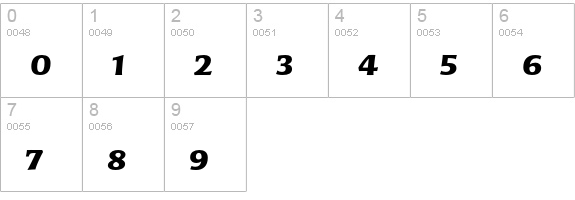
Conga Brava Std Bold is a strong, high-contrast variant in the Conga typeface family \xE2\x80\x94 well suited to headlines, attention-grabbing titles, and strong calls-to-action.
Conga Brava Std Bold font is a striking and versatile typeface that exudes confidence and modernity. Its bold weight commands attention and makes a bold statement in any design project. With its clean lines and strong presence, this font is perfect for headlines, titles, and branding materials that need to stand out. The best part? Conga Brava Std Bold font is completely free to download at FontsMarket.com. Whether you're a designer looking to add a touch of boldness to your work or a business owner seeking a unique font for your branding, this font is a fantastic choice. Don't miss out on the opportunity to enhance your projects with this eye-catching typeface that is not only stylish but also easily accessible. Download Conga Brava Std Bold font today and take your designs to the next level!